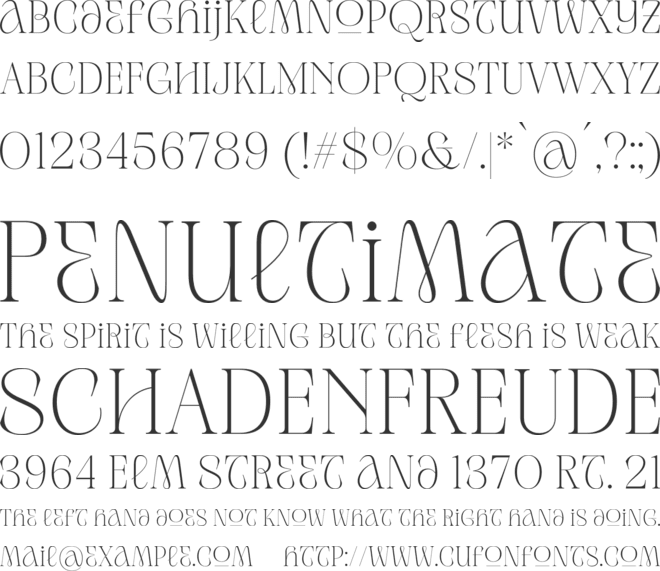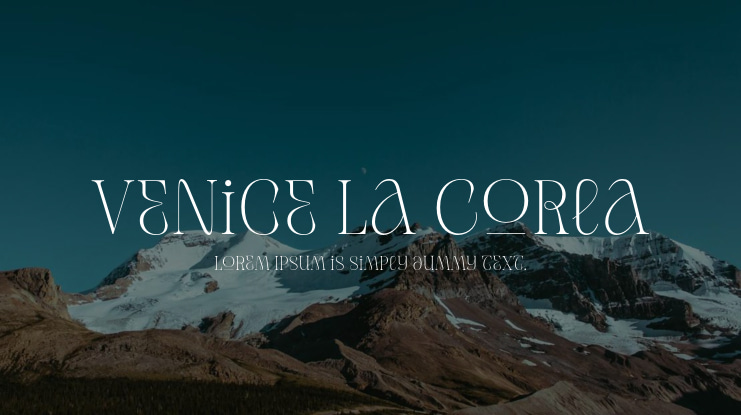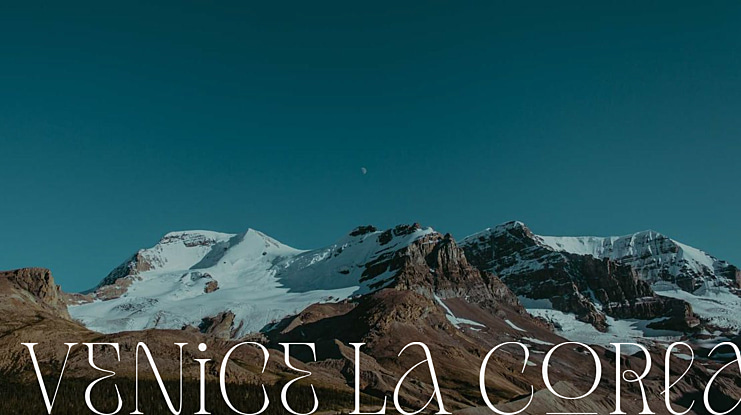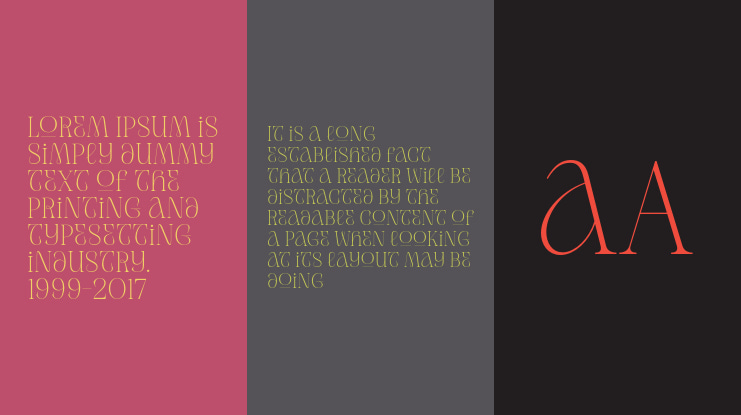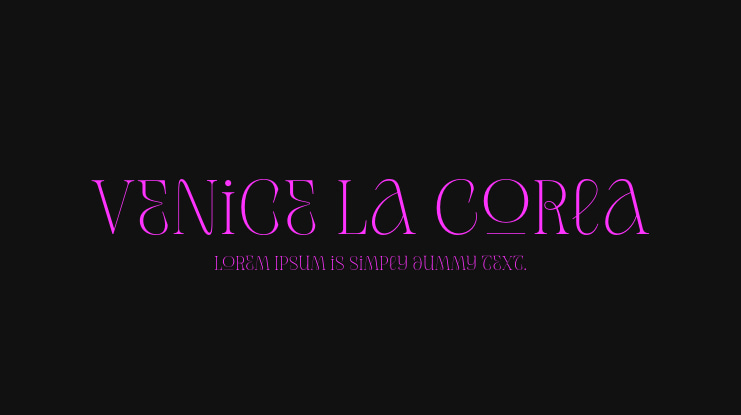
Venice La Corla is a breathtaking serif font that embodies timeless
elegance and sophistication. This typeface exudes a sense of
refinement and grace that is perfect for projects where a touch of
classic charm is required. Each character in Venice La Corla is
meticulously crafted to provide a harmonious balance between its
serifs and elegant lines, resulting in a truly remarkable font.